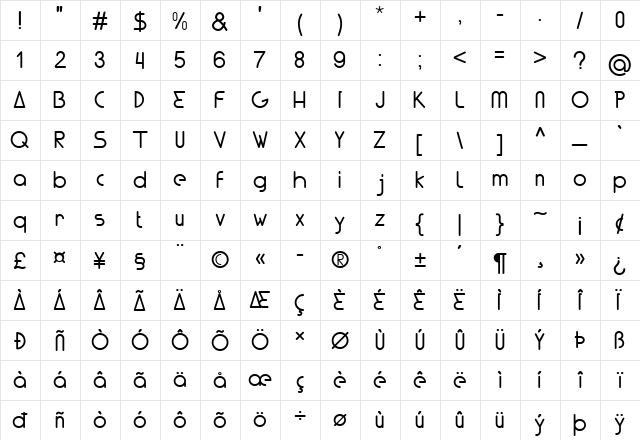
Lunar Regular
| Foundry | Kong Font |
| Designer | Typeface騋ongFont). 2020 |
Design Context for Lunar Typeface
Lunar offers clean, dependable letterforms without strong stylistic allegiance, making it a practical choice for designers who need flexibility.